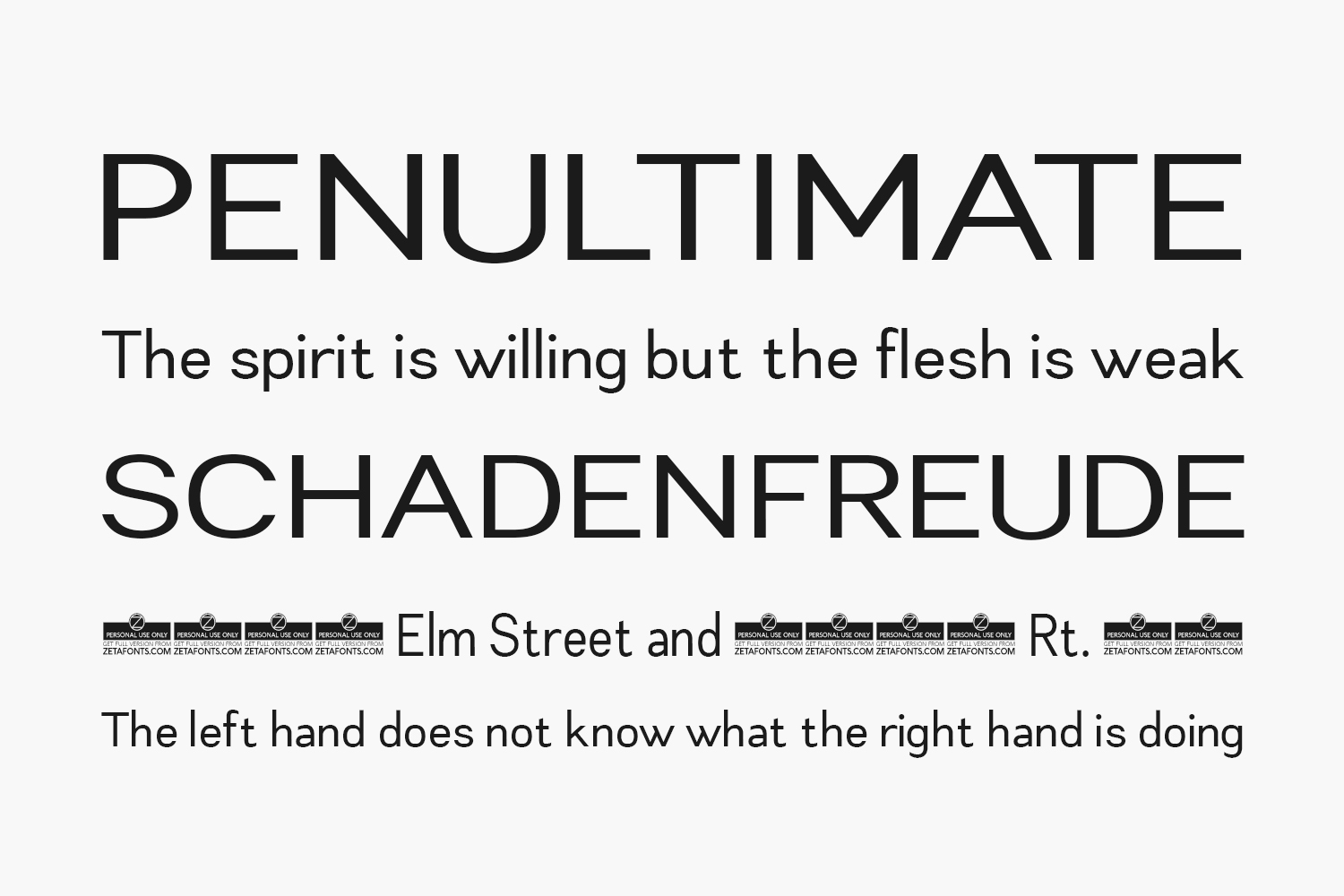
Leon Free Font is the companion sans-serif of Napo. Napo is a slab serif typeface designed for display and body copy use. It comes in four weights with italics and covers over forty languages using the Latin alphabet. Leon Free Font is a demo and free for personal or commercial use.